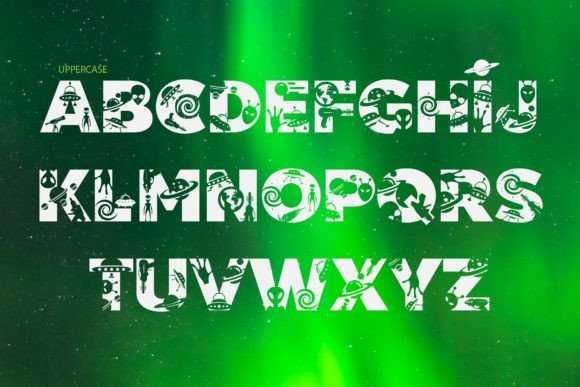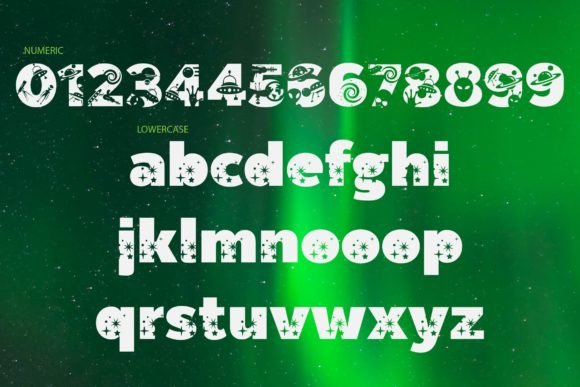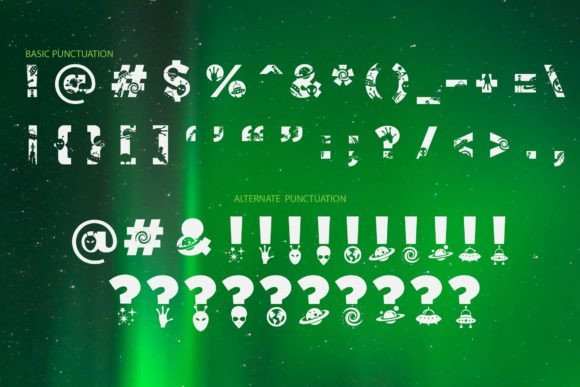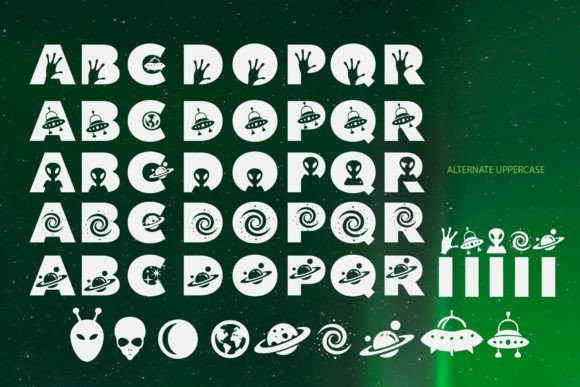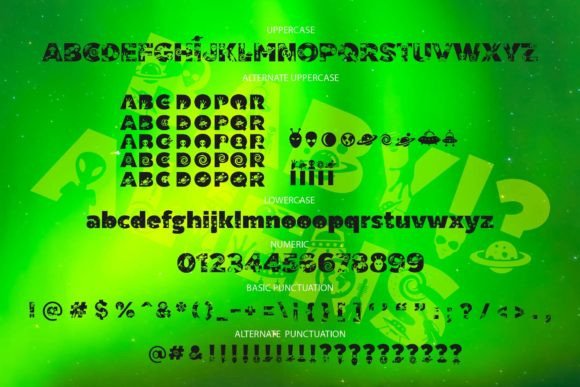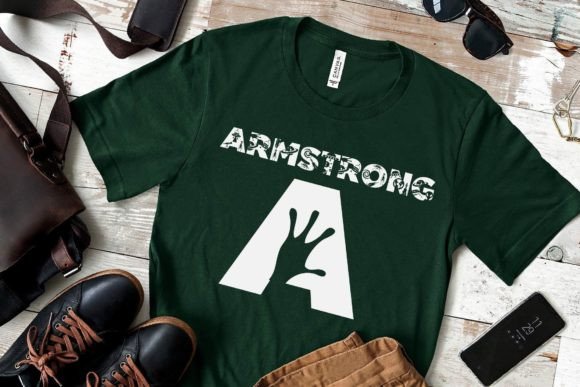
Baby Aliens Font: The Ultimate Decorative Font for Fun and Creativity
Are you tired of using the same old fonts in your designs? Look no further than the Baby Aliens Font, a bold, cool, and assertive decorative font that’s sure to bring fun and personality to any project. In this article, we’ll explore the features and benefits of Baby Aliens, and why it’s a must-have for designers and crafters looking to add a touch of whimsy to their work.
What is Baby Aliens Font?
Baby Aliens Font is a decorative font that’s perfect for designers and crafters who want to add a playful touch to their projects. This font is bold, cool, and assertive, making it ideal for creating eye-catching designs that stand out from the crowd. Whether you’re working on a graphic design project, crafting a handmade card, or creating a digital illustration, Baby Aliens Font is sure to bring a smile to your face and add a touch of fun to your work.
Key Features of Baby Aliens Font
- Bold and Assertive: Baby Aliens Font is a bold and assertive font that’s perfect for making a statement. Its unique and quirky design ensures that your text will stand out from the crowd and grab attention.
- Decorative and Fun: Baby Aliens Font is a decorative font that’s designed to bring fun and personality to your designs. Its playful and whimsical design makes it perfect for creating eye-catching designs that are sure to delight.
Benefits of Using Baby Aliens Font
So why should you use Baby Aliens Font in your designs? Here are just a few benefits of using this amazing font:
- Adds Personality to Your Designs: Baby Aliens Font is a unique and quirky font that’s sure to add personality to your designs. Its bold and assertive design ensures that your text will stand out from the crowd and grab attention.
- Perfect for Creative Projects: Baby Aliens Font is perfect for creative projects, such as handmade cards, digital illustrations, and graphic design projects. Its playful and whimsical design makes it ideal for adding a touch of fun to your work.
In conclusion, Baby Aliens Font is a bold, cool, and assertive decorative font that’s perfect for designers and crafters who want to add a touch of fun and personality to their work. With its PUA encoding and easy-to-use design, Baby Aliens Font is a must-have for anyone looking to create eye-catching designs that stand out from the crowd. So why wait? Add Baby Aliens Font to your favorite creative projects today, and make them outstanding!
Need some inspiration for using Baby Aliens Font? Here are a few tips and ideas to get you started:
- Use it for Headings: Baby Aliens Font is perfect for headings and titles, where its bold and assertive design can really make an impact.
- Add it to Your Branding: Use Baby Aliens Font to add a touch of personality to your branding, such as on business cards, letterheads, and packaging.
- Create Fun and Whimsical Designs: Baby Aliens Font is perfect for creating fun and whimsical designs, such as handmade cards, digital illustrations, and children’s book illustrations.